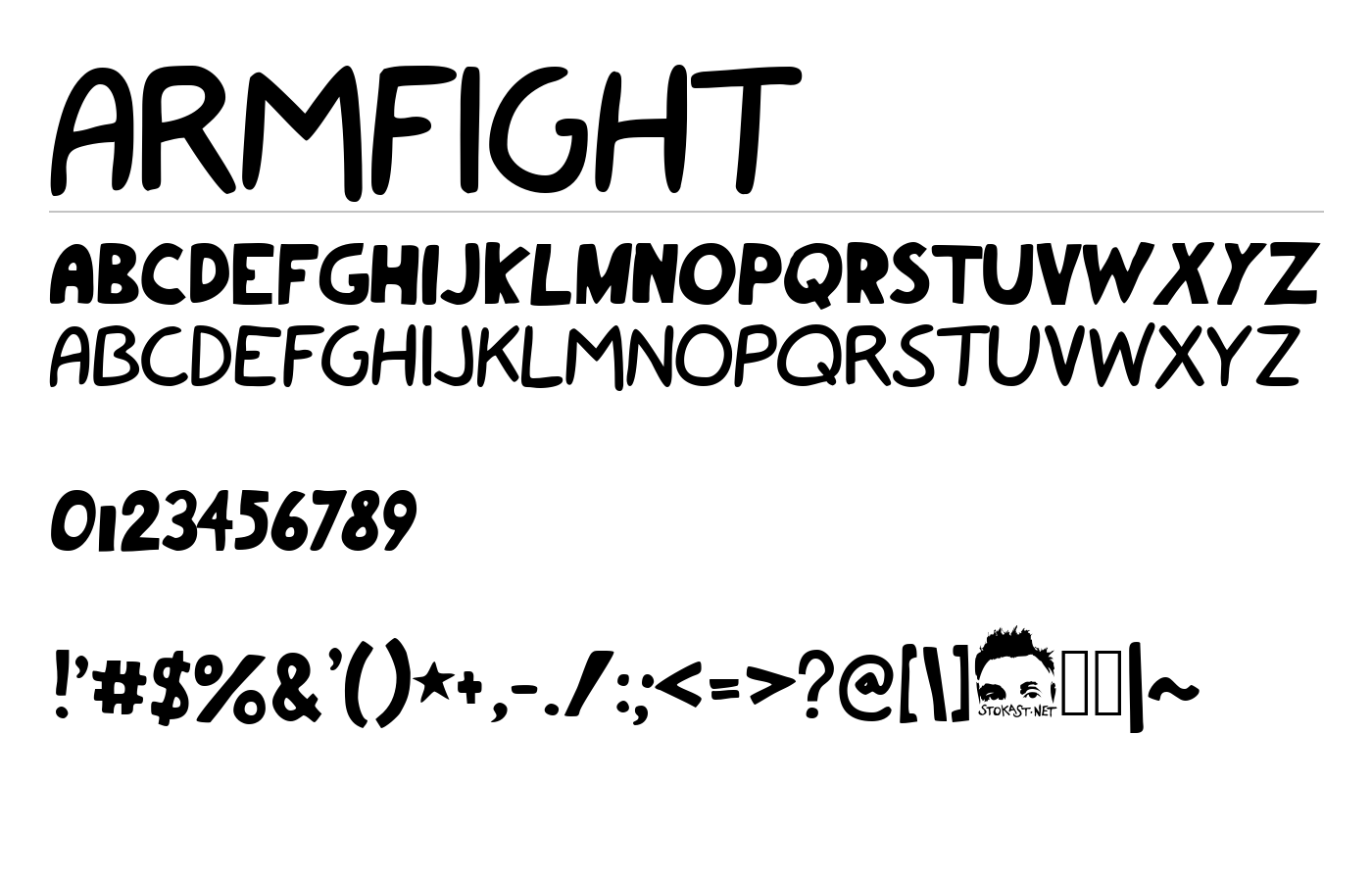
Armfight is a playful, hand-drawn sans serif font with a bold and casual feel that adds a lively, youthful energy to any design. Its irregular strokes and varying widths give it a dynamic and approachable personality, making it ideal for fun branding, posters, and creative projects where a friendly, informal tone is desired. This font works best in headlines or display text where its unique character can shine and grab attention.
armfight Font
About armfight Font
| Font family | armfight Font |
| Designer | Elling Lien |